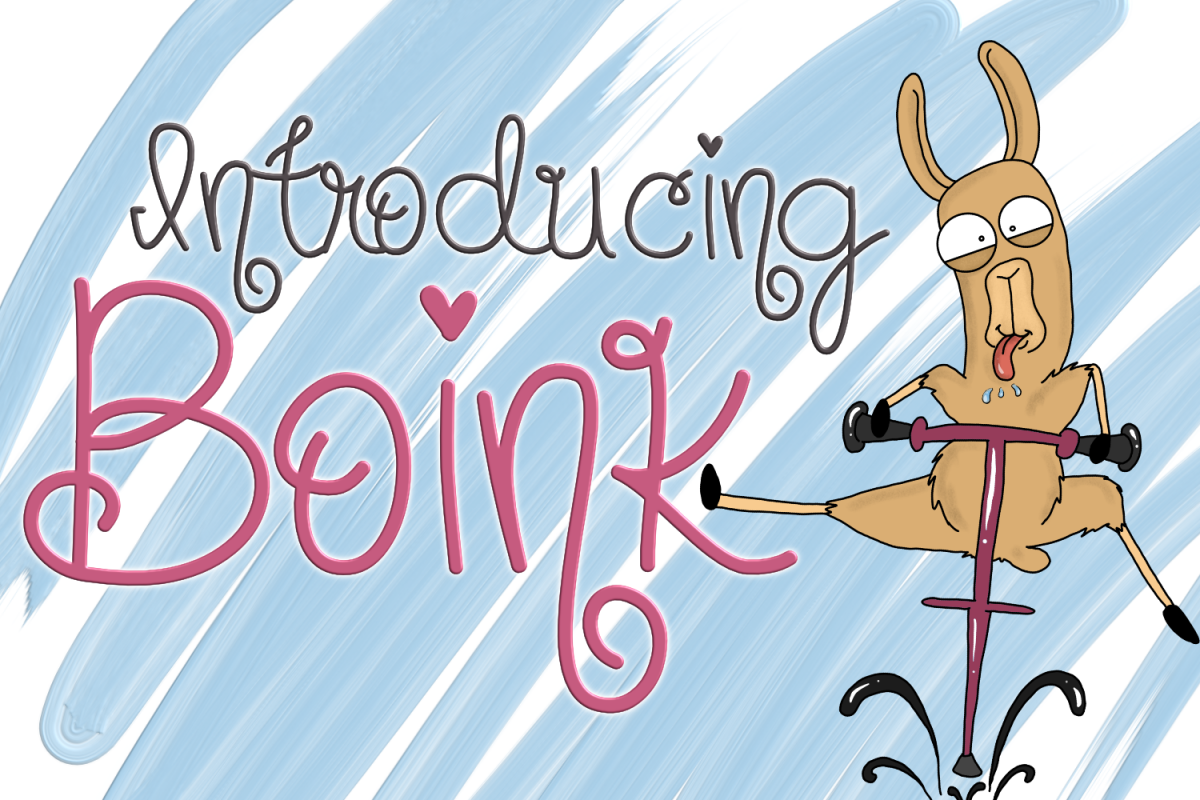
Boink Font
Introducing Boink.
A fun & playful font!
The character ~ is replaced with a different lowercase r.
I love the 'n' and hearts on this font. It types beautifully.